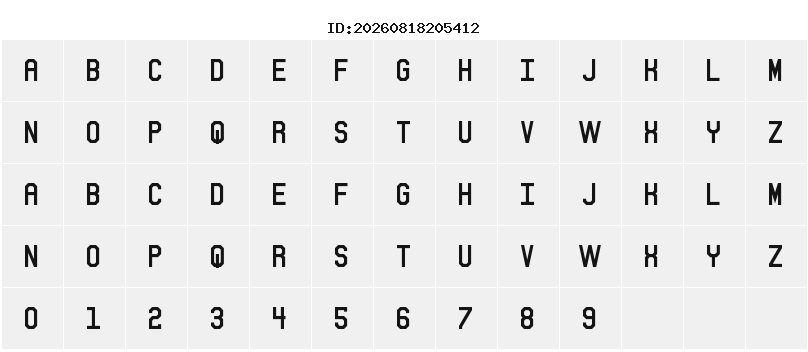
Sitdown.otf is a modern, elegant sans-serif font designed for ultimate readability and visual harmony. Perfect for branding, headlines, web design, and print materials.